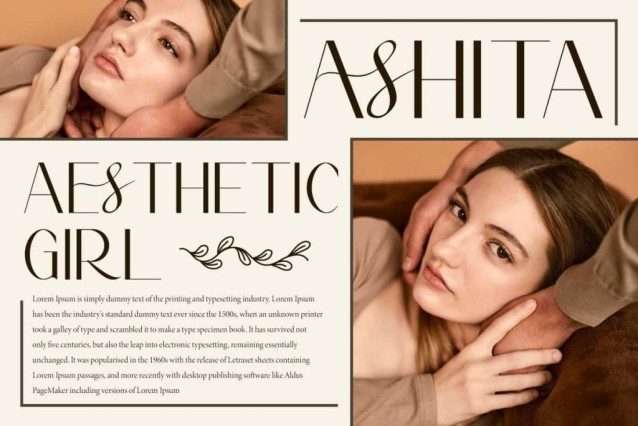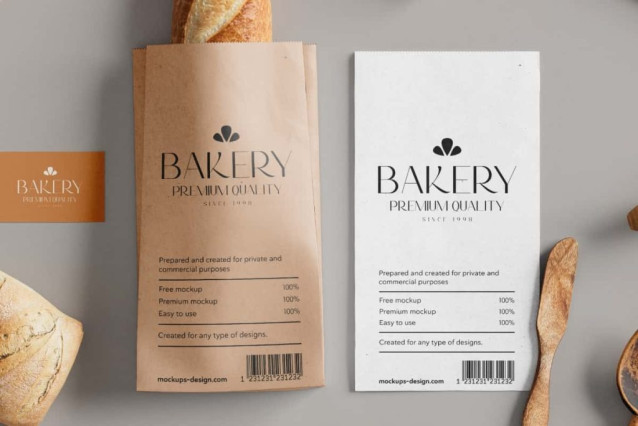
Revina Jaicie Font is an elegant sans serif display font with a luxurious feel, exuding a strong feminine aura and immense beauty. Perfect for accessories and gift, architecture, bakery, cafes, fashion, handicraft, home furniture, hotel, interior design, photography, real estate, skincare, spa salon, and More.
Revina Jaicie Font includes full set of Uppercase and Lowercase Basic Characters, Numbers, Punctuation, Symbols and Ligature. It has a sleek and stylish typeface that brings a luxurious and feminine feel to any design, making it perfect for apps, blogs, brand logo, brochure, covers, embossed design, flyer, headers, invitation, label, mockup, product packaging, quotes, stationery, sticker, template, titles, website, etc.